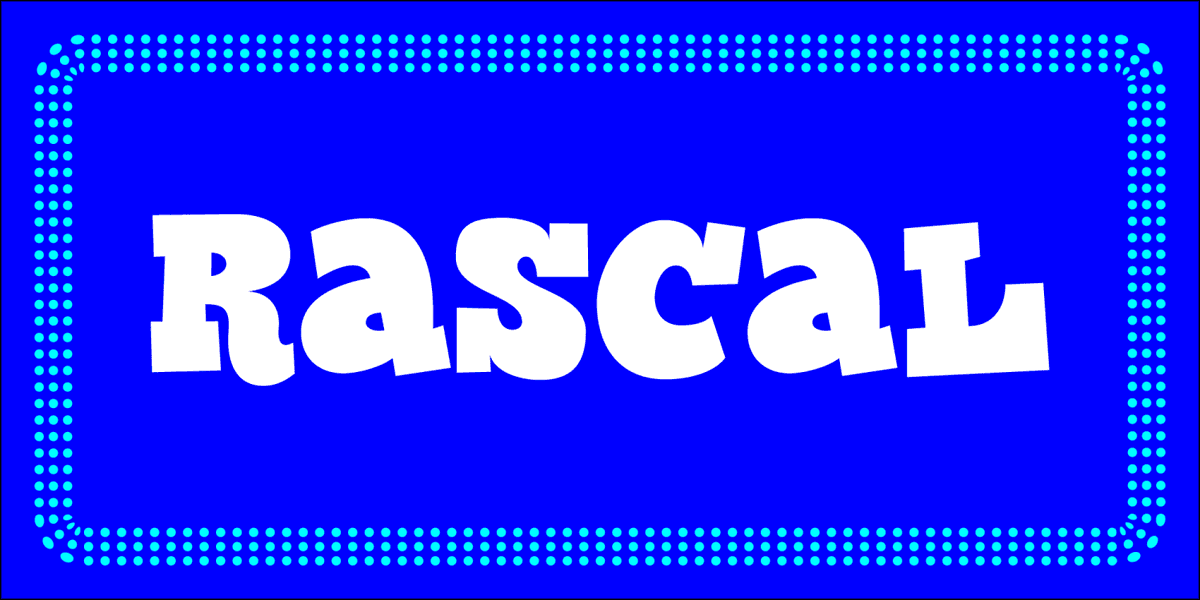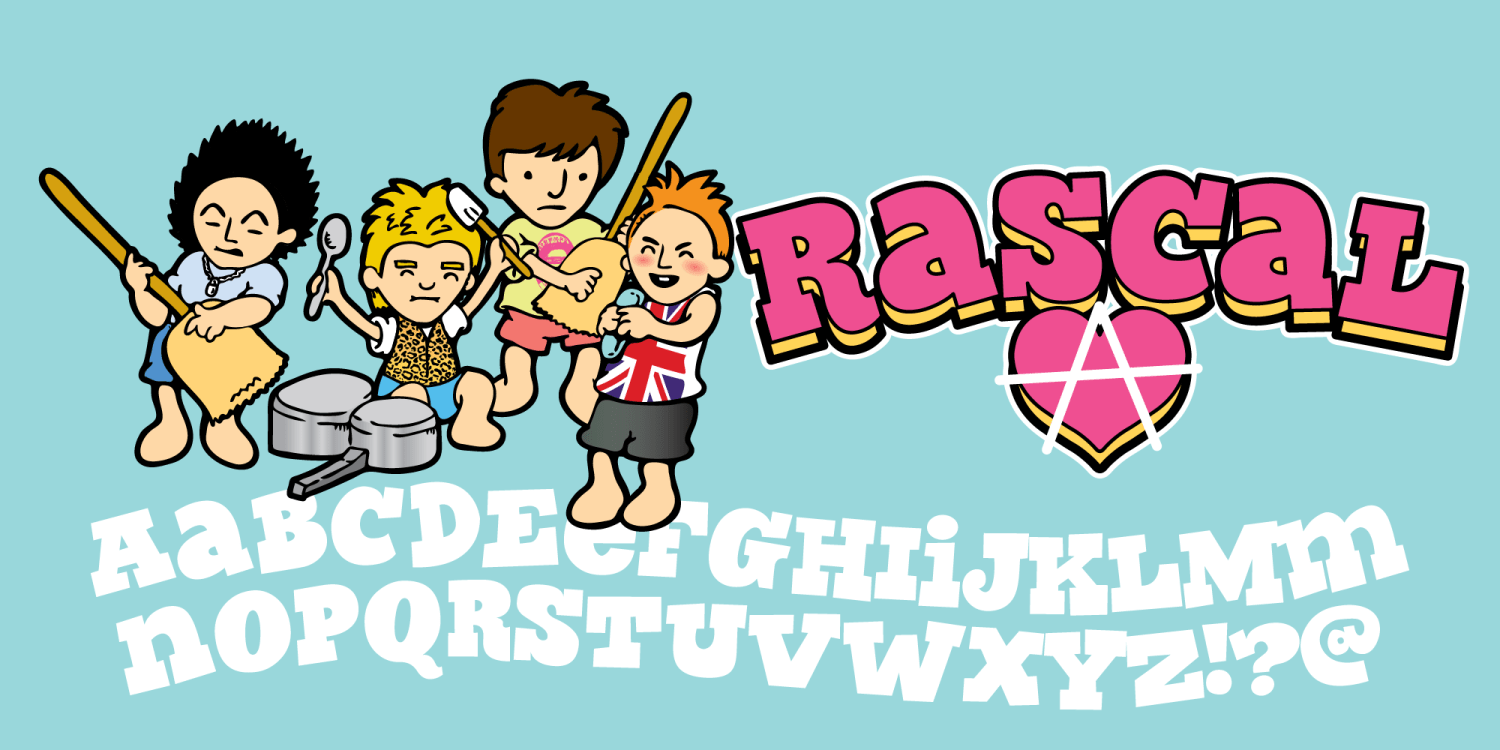
Rascal
If you want to make something cute, make a smaller version of it. Mini Oreos? Totally. Puppies? Absolutely. What about the Sex Pistols? I think so. Make a Saturday morning cartoon featuring those pint-sized rascals. Maybe they are doing a "Home Alone" thing at the Chelsea Hotel. We get Disney behind it, make a bunch of money. How punk rock would that be?